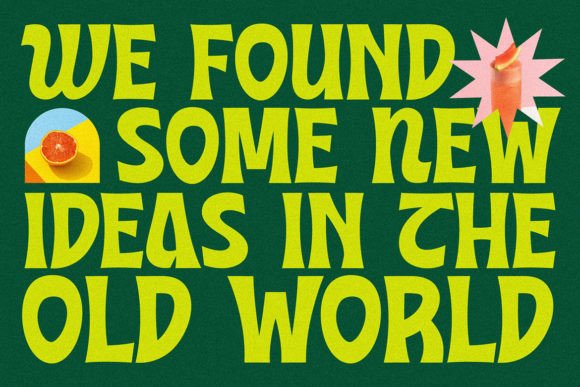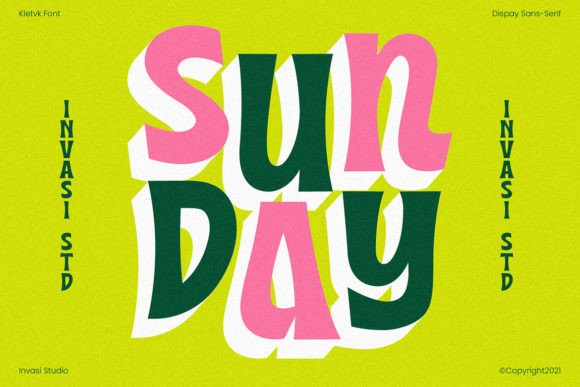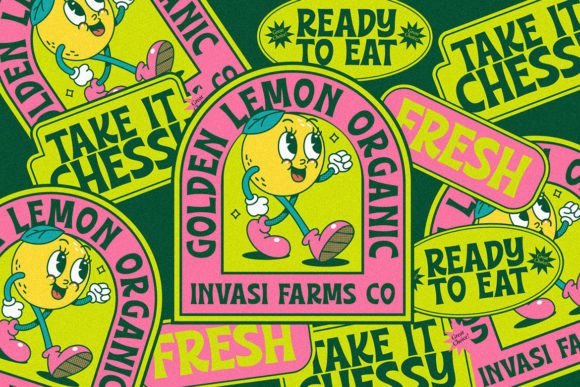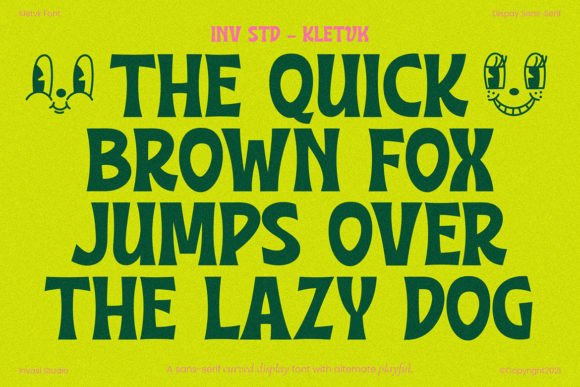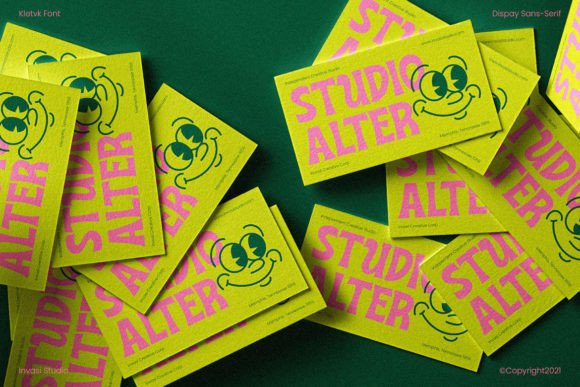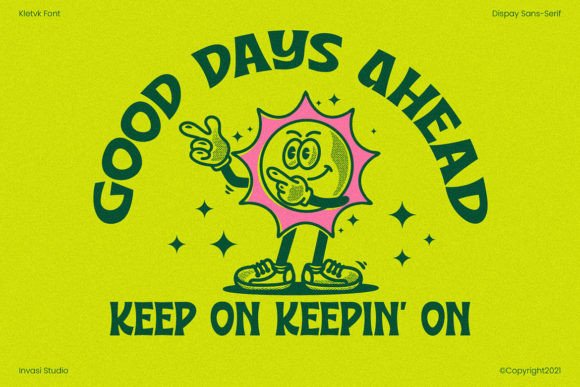
Introduction to Kletvk Font
Kletvk is a captivating sans-serif display font that exudes a retro vibe.
Its distinct feature lies in the beautifully curved glyphs and the inclusion of special alternates with swash characters, adding a touch of elegance and uniqueness to your designs Whether youโre working on headlines, quotes, editorial designs, or print posters, Kletvk is the ideal choice to make your text stand out.
Key Features of Kletvk Font